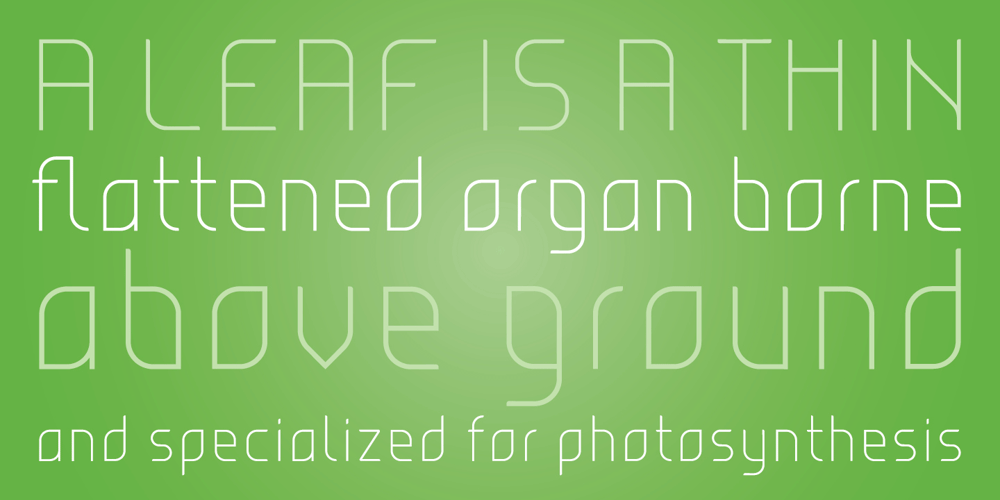
Blattwerk Font Family was designed by Selina Christ and published by Volcano Type. Blattwerk contains 1 styles and family package options. The shapes of “Blattwerk” (german for leafage) are based on an abstract leaf. The geometrical sans serif font has several standard and decorative ligatures and will work best as a display typeface for logos, headlines and short texts. The individual letters can also be used to form symbols or patterns.